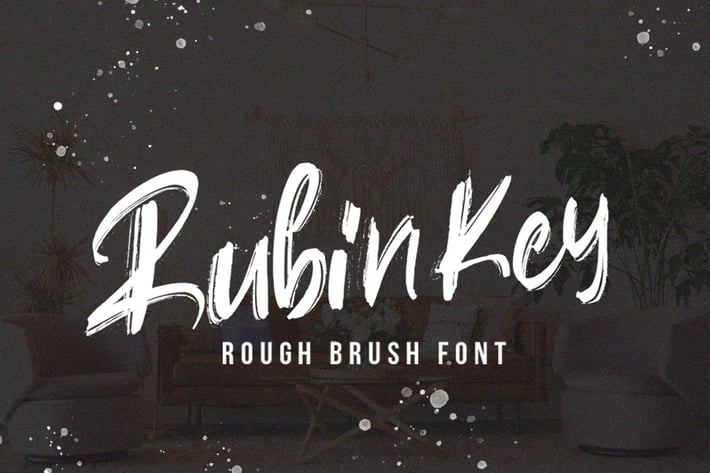
Rubinkey Rough Font
Rubin Key is a beautiful handwritten font, created with the help of a unique brush pen. Fall in love with its incredibly versatile style and use it to create spectacular designs!